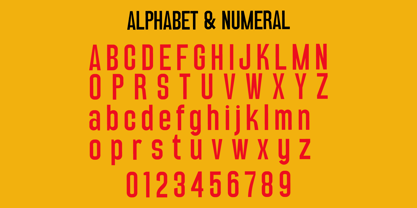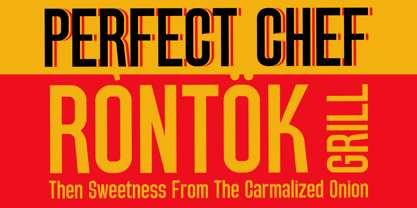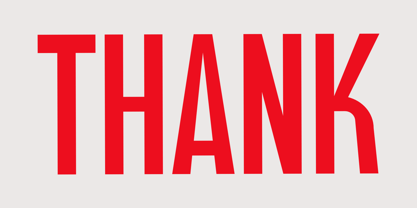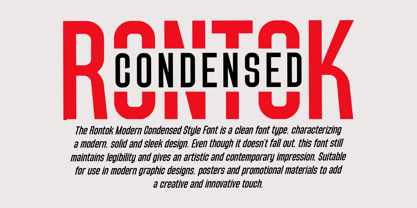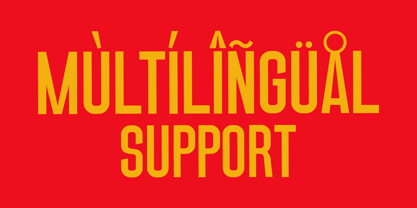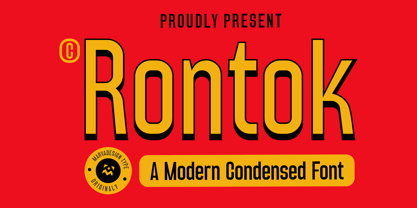
Rontok
The Rontok Font Family was designed by Febrie Setiawan and published by Marvadesign. Rontok contains 2 styles and family package options. More about this family
Introducing Rontok is a modern, condensed typeface that embodies strength, boldness, and a contemporary aesthetic. Designed with clean, sharp lines and a sleek geometric structure, this font delivers a sense of confidence and sophistication. Its condensed letterforms create a strong visual impact, making it an excellent choice for headlines, branding, posters, and promotional materials.
The font maintains a careful balance between modernity and readability, ensuring that even at tighter spacing, it remains clear and legible. The striking contrast between thick and thin strokes, combined with subtle rounded edges, provides an elegant yet industrial feel. Whether used in digital or print media, Rontok stands out with its distinct personality, making it ideal for high-impact designs that demand attention.
Perfectly suited for modern graphic design applications, Rontok adds a creative and innovative touch to any project, offering versatility while maintaining its unique character. Its adaptability allows it to be used across various industries, from advertising to editorial design, providing a bold and professional typographic statement.